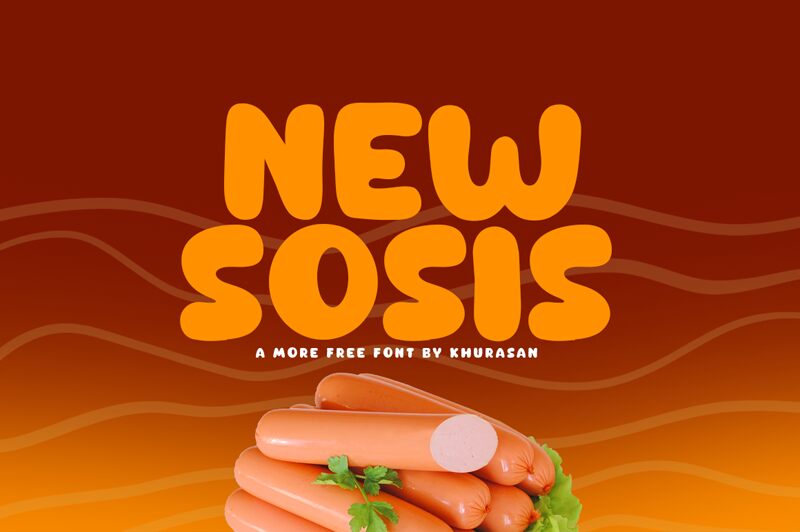
New Sosis
New Sosis, a playful and vibrant display font designed by Khurasan, is here to add a touch of whimsy to your projects.
With its extra-bold weight and cartoon style, this font is perfect for children's book covers, animated movie posters, and video game titles. Its boldness commands attention and its playful curves bring characters to life. Whether you're designing a brand logo or creating eye-catching graphics for social media, New Sosis will infuse your work with creativity and charm.
Let your imagination run wild with this delightful typeface!